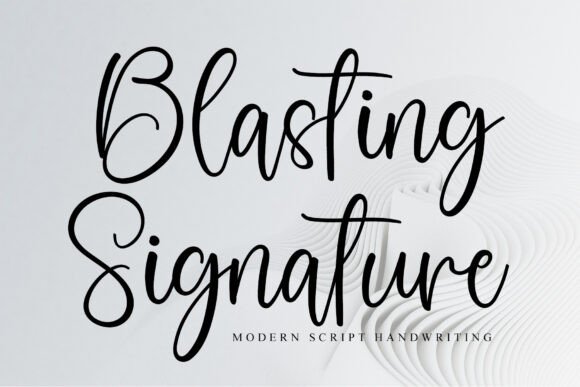
Introducing Blasting Signature Font: Elevate Your Designs with Elegance and Personality
In the world of typography, a well-crafted font can make all the difference in creating a lasting impression. For designers, artists, and creatives, finding the perfect font that balances elegance with a modern twist can be a daunting task. However, look no further than Blasting Signature Font, a beautifully designed handwriting font that is sure to elevate your designs to new heights.
The Perfect Blend of Elegance and Modernity
Blasting Signature Font is a masterfully crafted handwriting font that seamlessly blends elegance with a modern, artistic touch. Its flowing strokes and well-balanced curves create a sophisticated yet approachable feel, making it the perfect font choice for those who want to add a touch of class and personality to their designs. Whether you’re working on a branding project, a wedding invitation, or a social media post, Blasting Signature Font is sure to make a statement.
Key Features of Blasting Signature Font
- Beautifully Crafted: Blasting Signature Font is carefully designed to ensure that every letter, stroke, and curve is perfect, resulting in a font that is both visually appealing and highly legible.
- Elegant and Modern: The font’s elegant and modern design makes it perfect for a wide range of applications, from luxury brands to personal projects.
- Handwriting Style: Blasting Signature Font has a unique handwriting style that adds a personal touch to any design, making it stand out from more traditional fonts.
- Highly Versatile: The font is highly versatile and can be used for a variety of projects, including branding, advertising, packaging, and more.
What Makes Blasting Signature Font Stand Out
In a sea of fonts, Blasting Signature Font stands out for its unique blend of elegance and modernity. Its flowing strokes and well-balanced curves create a sense of movement and fluidity, making it perfect for designs that require a touch of sophistication and personality. Additionally, the font’s handwriting style adds a personal touch, making it ideal for projects that require a more human approach.
How to Use Blasting Signature Font in Your Designs
Blasting Signature Font is incredibly easy to use and can be incorporated into a wide range of designs. Here are a few ideas to get you started:
- Branding: Use Blasting Signature Font as a logo or typography for your brand, adding a touch of elegance and sophistication to your visual identity.
- Wedding Invitations: Add a touch of romance and elegance to your wedding invitations with Blasting Signature Font.
- Social Media: Use Blasting Signature Font to create eye-catching social media posts that stand out from the crowd.
- Packaging: Add a touch of luxury and sophistication to your packaging with Blasting Signature Font.
Tips and Tricks for Getting the Most Out of Blasting Signature Font
To get the most out of Blasting Signature Font, here are a few tips and tricks to keep in mind:
- Experiment with Different Sizes: Blasting Signature Font looks great in a variety of sizes, so don’t be afraid to experiment to find the perfect size for your design.
- Play with Colors: The font’s elegant design looks great in a range of colors, so try experimenting with different hues to find the perfect match for your brand.
- Mix and Match: Don’t be afraid to mix and match Blasting Signature Font with other fonts to create a unique and eye-catching design.
In conclusion, Blasting Signature Font is a beautifully crafted handwriting font that is sure to elevate your designs to new heights. Its unique blend of elegance and modernity makes it perfect for a wide range of applications, from luxury brands to personal projects. With its highly versatile design and ease of use, Blasting Signature Font is a must-have for any designer, artist, or creative looking to add a touch of class and personality to their work.